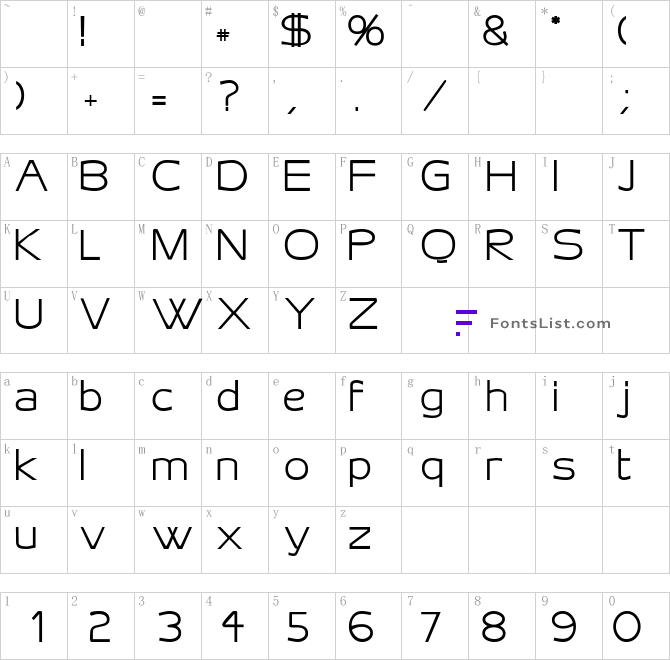
- Font Name:AireoDisplay
AireoDisplay-Bold.ttf is a very beautiful artistic font, AireoDisplay-Bold.ttf is widely used in the design and printing of various books and pictures,AireoDisplay-Bold.ttf has a strong visual impact,AireoDisplay-Bold.ttf is a commonly used font in newspapers, magazines and books, and is used in posters, e-commerce Poster design, store design, logo design, font design and other fields.AireoDisplay-Bold.